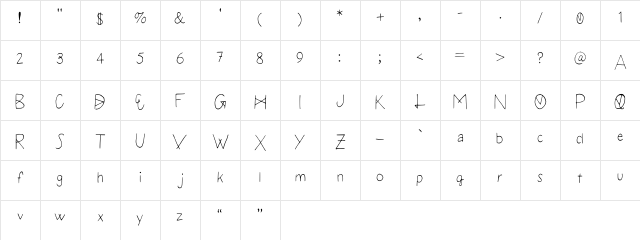
Complete Axiom Medium glyph index. Displaying only characters natively supported by Axiom Medium font.
Axiom is a composed and adaptable typeface that performs quietly and consistently across a wide range of design contexts.